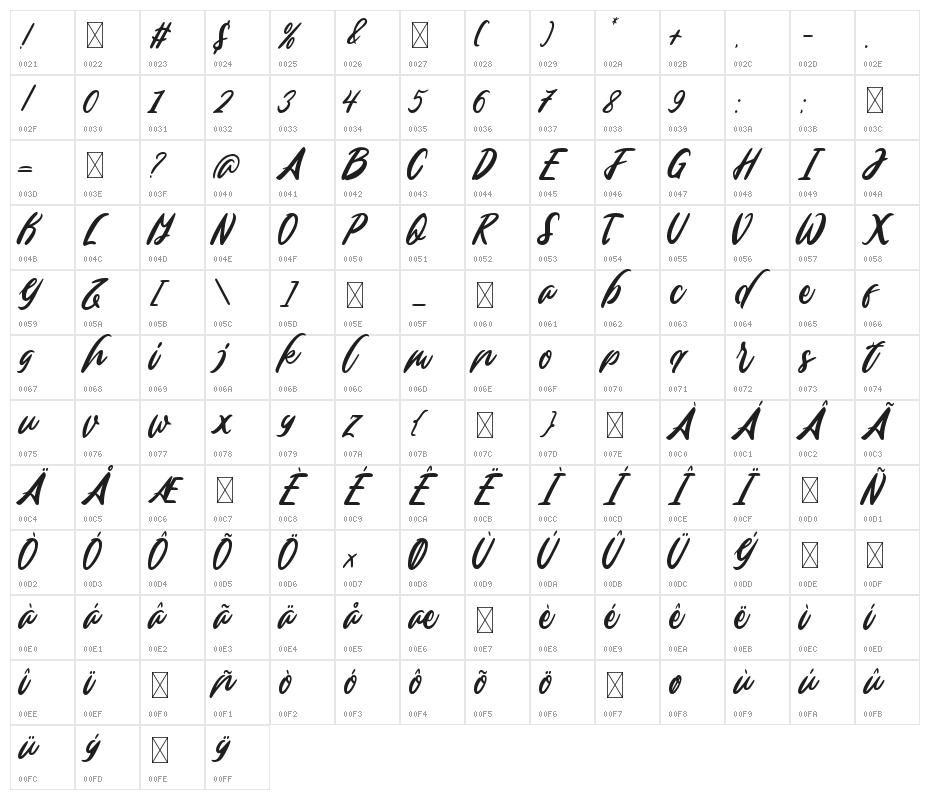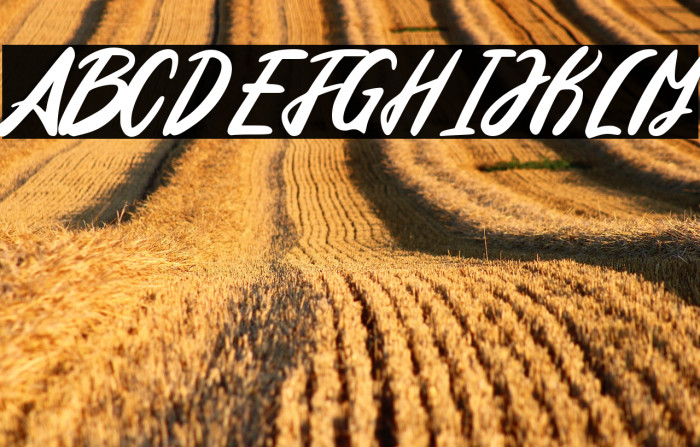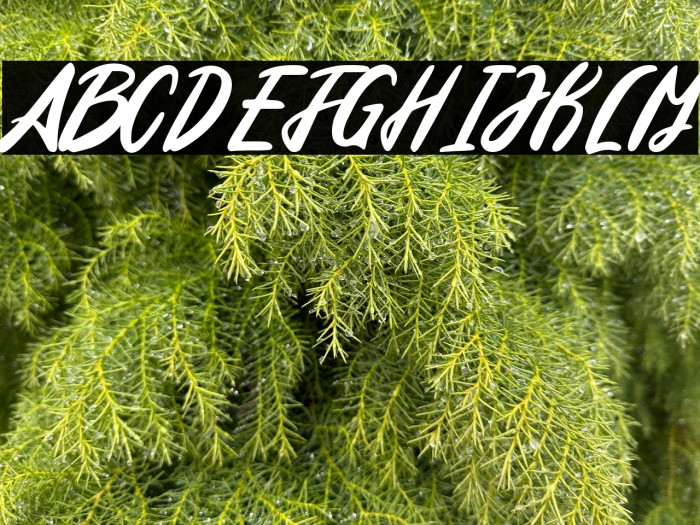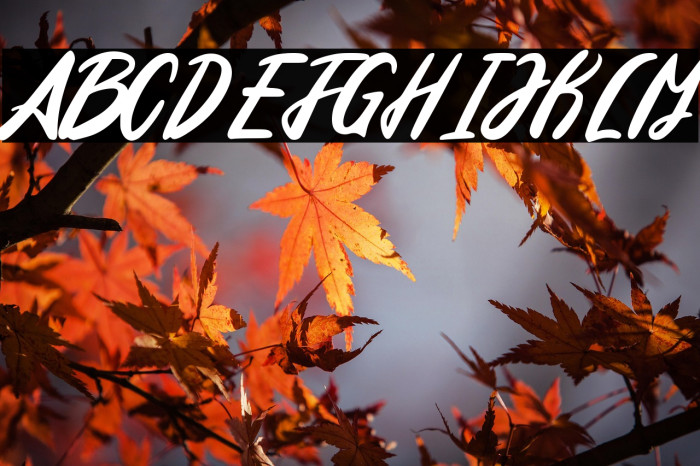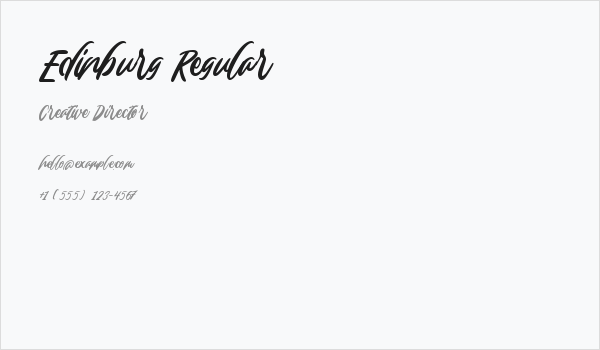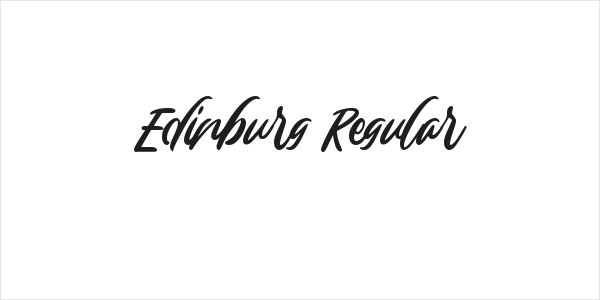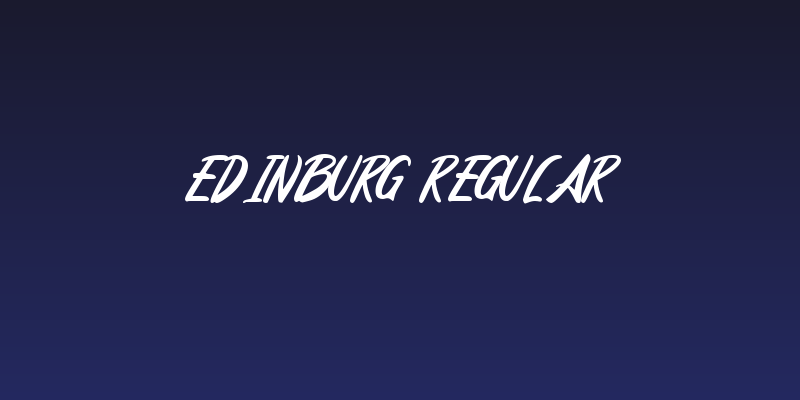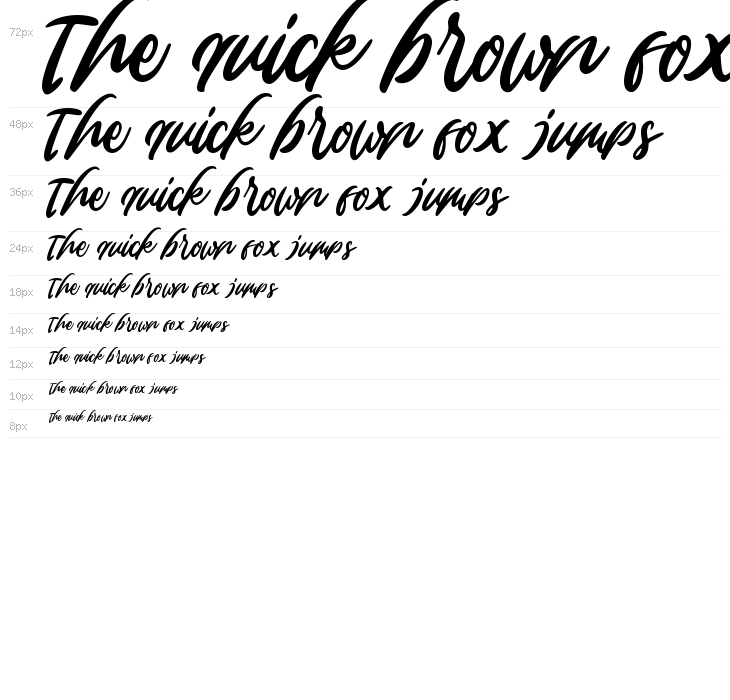
Edinburg Regular Font
Edinburg Regular Description
This font features a dynamic and fluid script style, characterized by its bold and expressive strokes. The letters are connected, giving it a handwritten appearance that is both elegant and energetic. The uppercase letters are slightly more structured, while the lowercase letters exhibit a more casual and flowing form. The numerals and special characters maintain the same stylistic flair, ensuring consistency across all elements. This font's design is perfect for capturing attention with its artistic and lively presentation.
| Proposed Projects | Ideal for wedding invitations, branding, logo design, and creative projects that require a personal touch. |